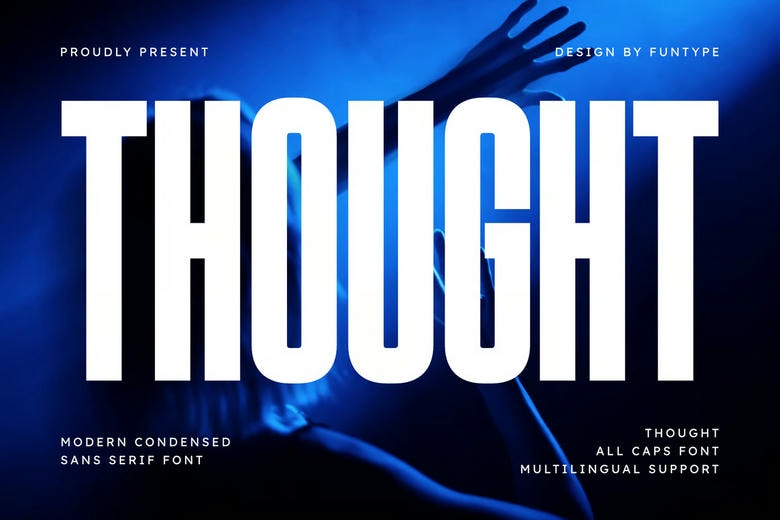
Thought Font
Thought Bold Condensed Font is a modern, high-impact sans serif designed for strong visibility and a clean, contemporary look. With its strong vertical lines and narrow letters, this font works well for bold headlines, branding, social media graphics, and posters.
This all-caps font helps your message stand out with confidence and clarity, giving a modern and professional feel to any digital project.
Thought Bold Condensed Font